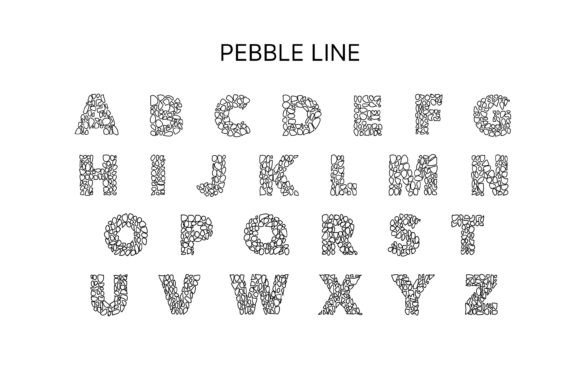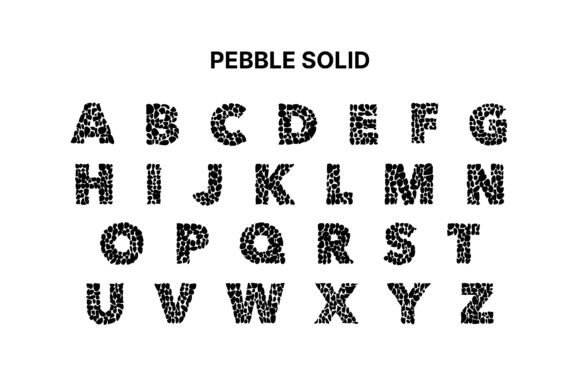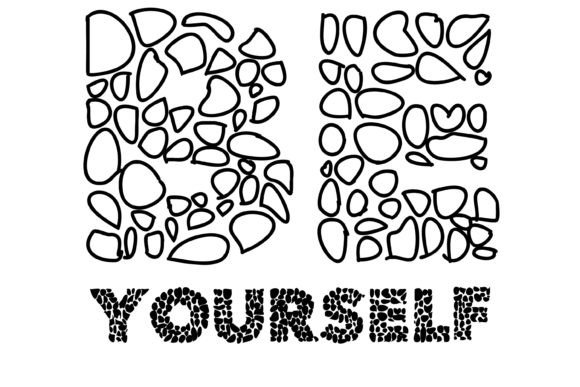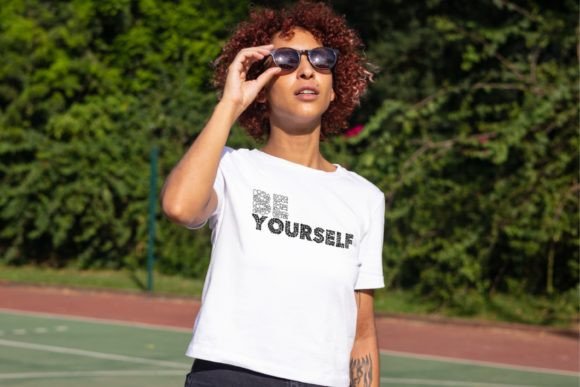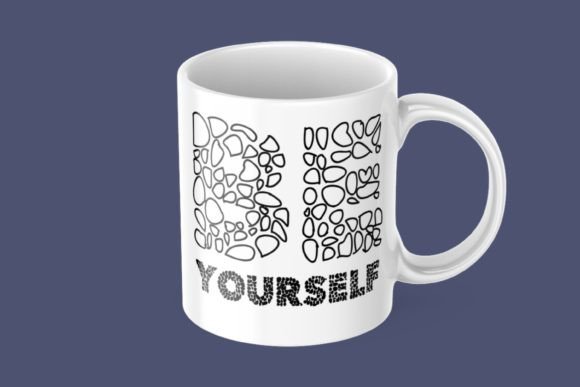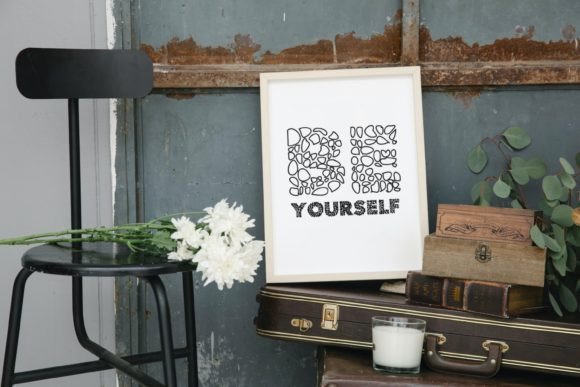
Introduction to Pebble Font
Pebble is a very unique display font Hand drawn style, A-Z upprcase, a captivating font inspired by the organic beauty of pebbles, it will look stunning, suitable for concept wording design, quotes on products, like mugs or shirts.
This typeface will be a fantastic addition to your library of fonts, regardless of the subject, as it has the ability to improve any design -You will receive: Font family 2 styles Line & solid 1).
Key Features of Pebble Font